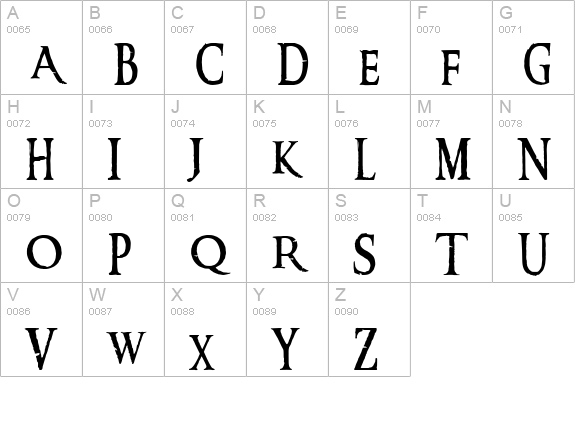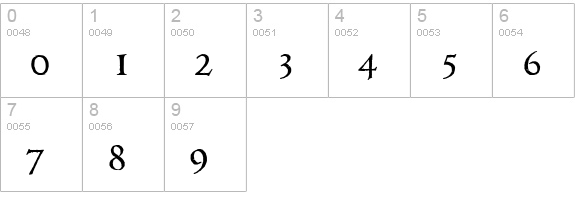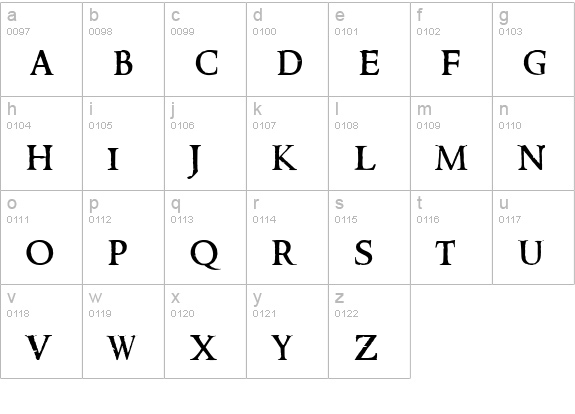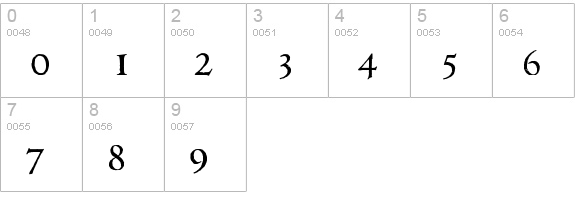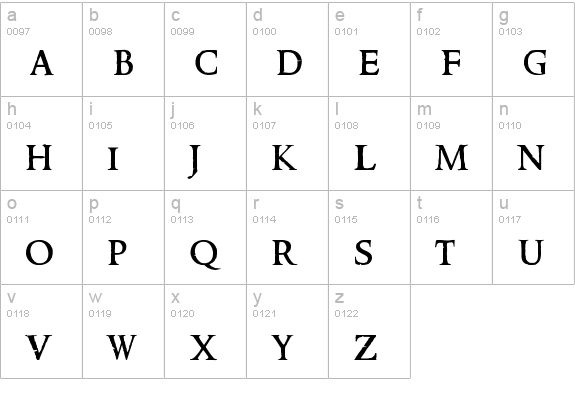
Ringbearer Medium is a balanced, medium-weight variant in the Ringbearer typeface family \xE2\x80\x94 well suited to sub-headlines, navigation, and balanced editorial work.
Ringbearer Medium font is a stunning typeface that exudes elegance and sophistication. Its balanced letterforms and refined curves make it a perfect choice for a wide range of design projects, from logos and branding to invitations and headlines. This versatile font strikes the perfect balance between legibility and artistic appeal, making it suitable for both print and digital applications. With its medium weight, Ringbearer Medium font offers a harmonious blend of boldness and subtlety, giving your designs a strong yet refined presence. Whether you're looking to create a timeless logo for a luxury brand or a captivating headline for a magazine spread, this font will surely make a lasting impression. One of the best things about Ringbearer Medium font is that it is available for free download at FontsMarket.com. This means that you can easily access and utilize this stunning typeface without any restrictions. Its availability on FontsMarket.com ensures that designers, professionals, and enthusiasts alike can effortlessly incorporate this font into their projects, enhancing their creativity and adding a touch of sophistication. So, if you're in search of a versatile and visually captivating font that is freely available, look no further than Ringbearer Medium font. Download it today from FontsMarket.com and unlock a world of design possibilities.